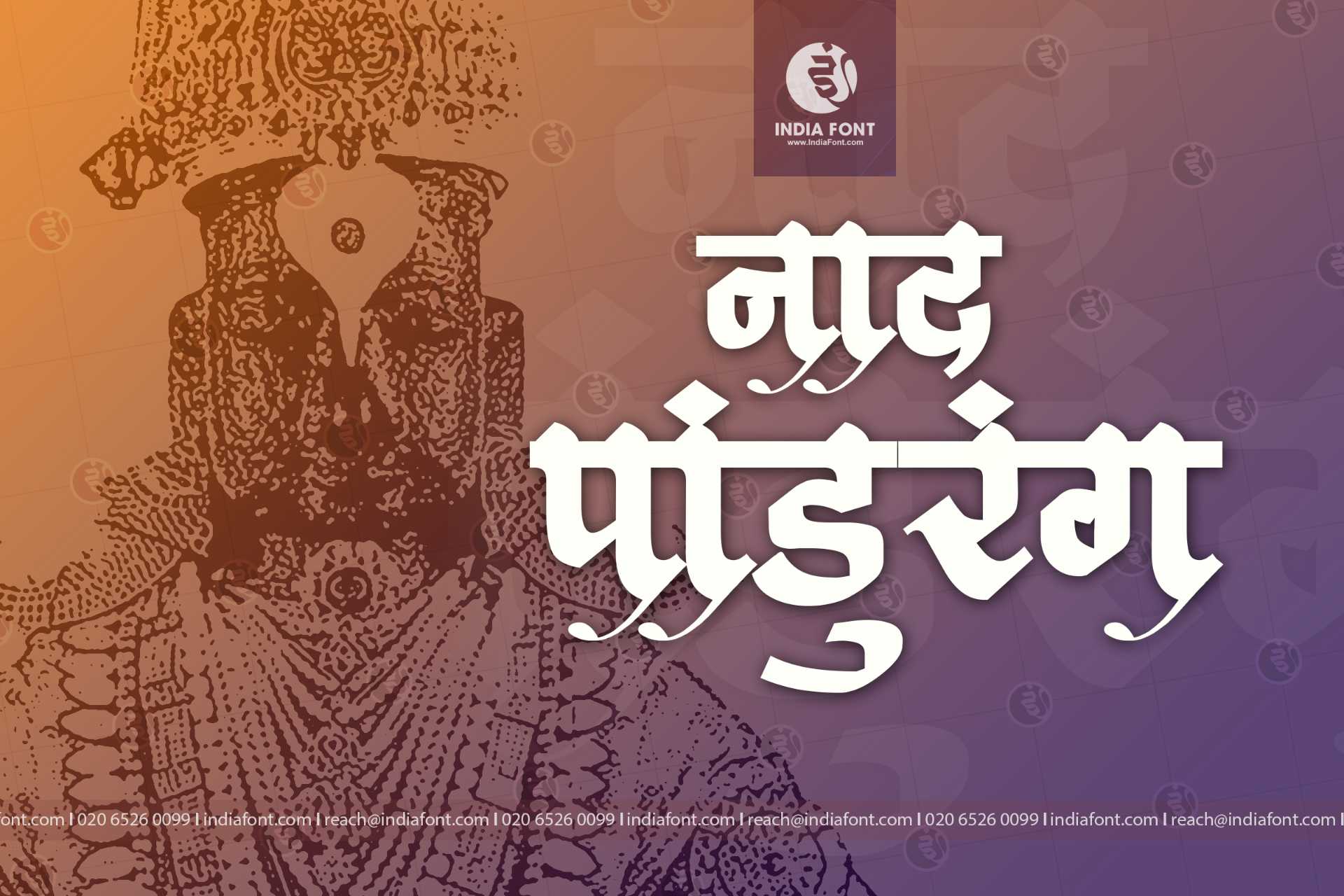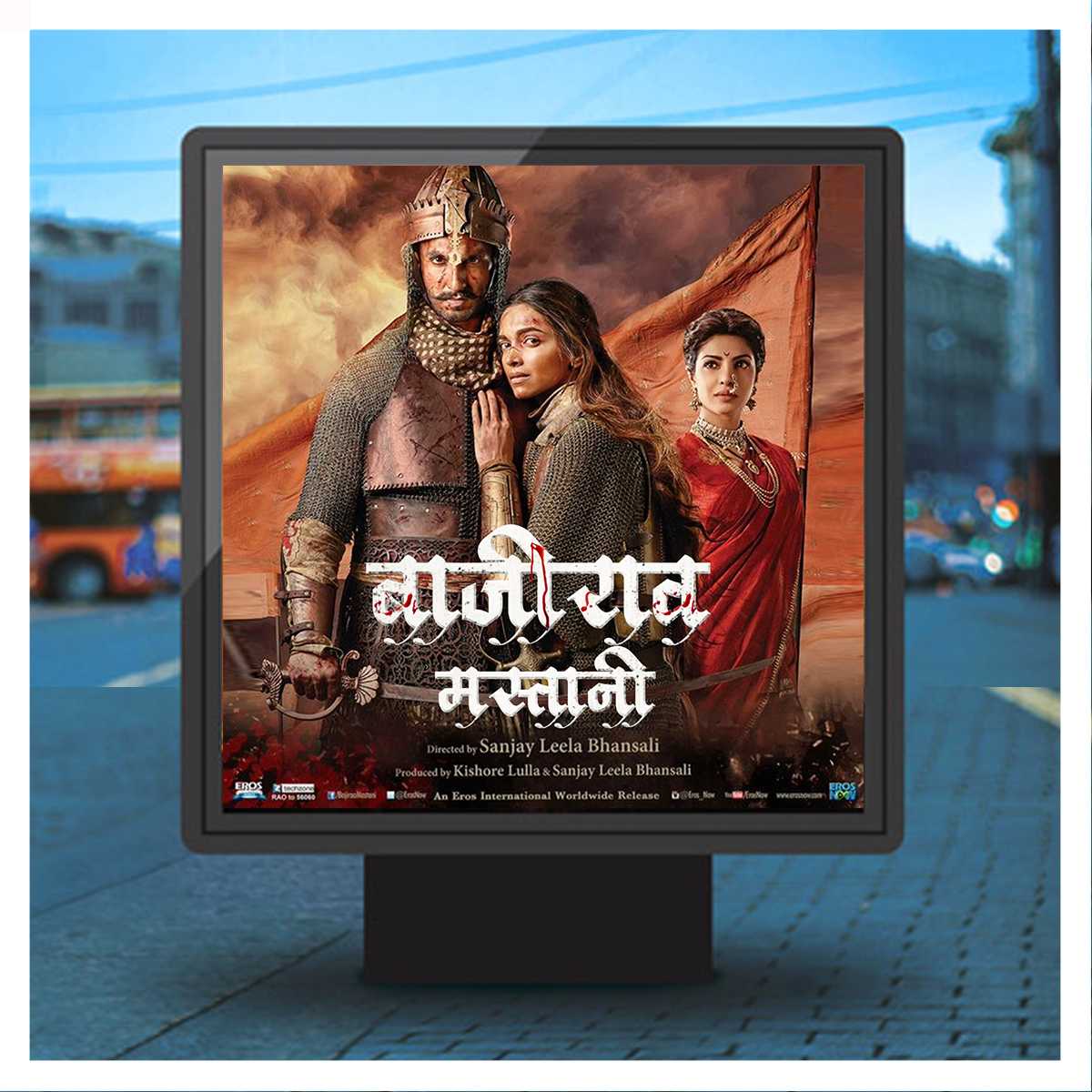
AMS Deepak
Illuminate your designs with the captivating AMS Deepak font. This Hindi and Marathi calligraphy font exudes warmth and creativity with its fluid strokes and delicate details.
About AMS Deepak Font
Illuminate your designs with the captivating AMS Deepak font. This Hindi and Marathi calligraphy font exudes warmth and creativity with its fluid strokes and delicate details. This calligraphy font combines elegance with functionality, making it perfect for various design applications.
AMS Deepak is a professionally crafted calligraphy typeface that brings clarity and style to your projects. Designed with attention to detail, it supports hindi and marathi characters flawlessly.
Whether you're working on headers-titles, festival-event-materials, quotes-typography-art, or other creative projects, AMS Deepak delivers consistent performance across both digital and print media. This carefully designed typeface ensures readability and visual appeal in all your design work.
AMS Deepak excels in various design scenarios. Here are the most suitable applications:
About AMS Deepak Typography Style
AMS Deepak is a professionally crafted calligraphy font that exemplifies modern Hindi typography design. This free font is perfect for designers seeking versatile design applications.
Available in 1 weight and supporting hindi, marathi scripts, AMS Deepak offers exceptional versatility for both digital and print media. Whether you're working on headers-titles, festival-event-materials, quotes-typography-art, this carefully designed typeface ensures consistent quality and professional results across all your typography projects.